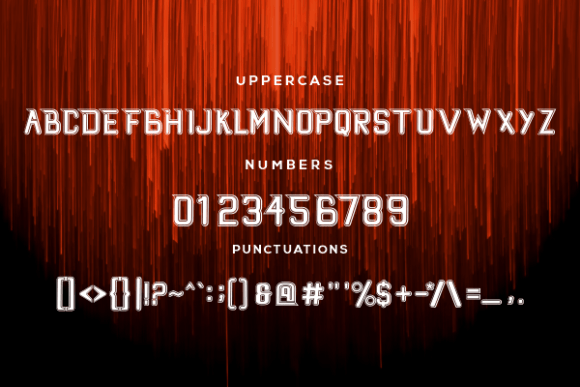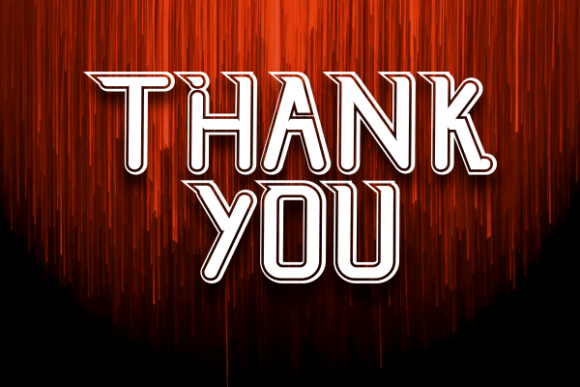
Introduction to Jeqmen Font
Do you ever find yourself scrolling through social media, mesmerized by a stunning visual project that perfectly captures your attention? For many designers, those ‘aha’ moments are what drive our creative process. It’s in those instances that we realize the power of the right design resource can elevate our ideas to new heights.
Enter Jeqmen Font – a modern and cool display font designed to bring your creative projects to life. With its sleek and sophisticated design, this high-quality font is sure to become a favorite among designers. Whether you’re working on a project with a transparent background or need a unique touch to make your design stand out, Jeqmen Font has got you covered.
Key Features of Jeqmen Font
- High-quality design resource suitable for creative projects, offering a unique aesthetic.
- Features a transparent background, making it easy to incorporate into designs with varying backgrounds.
- Designed to be highly legible, even at high resolutions, making it suitable for both print and digital projects.
- Perfect for designers, artists, and creatives looking for a high-quality, free design resource to elevate their projects.
Honest Review: Jeqmen Font
I recently stumbled upon the Jeqmen Font, a free design resource that has piqued my interest. As a designer, I’m always on the lookout for high-quality fonts to elevate my creative projects. Let’s dive into my honest review.
What works well: ✨ The Jeqmen Font has a unique and modern design aesthetic that can add a touch of sophistication to any project. The font is highly customizable and can be easily paired with other design elements to create a cohesive look.
- Transparency: The font offers a transparent background option, which makes it easy to integrate with other design elements.
- Customization: The font is highly customizable, allowing designers to adjust the size, color, and style to suit their needs.
However, there are a few limitations: ⚠️ The Jeqmen Font may not be suitable for all design projects, particularly those requiring a more traditional or classic font style. Additionally, the font may not be compatible with all software or operating systems.
Overall, I’m impressed with the Jeqmen Font. Its unique design and high level of customization make it a valuable resource for designers working on creative projects. With its free download option, it’s definitely worth checking out.
Tips for Getting the Most Out of Jeqmen Font
Use the Jeqmen Font in combination with other design elements to create a visually appealing design. Experiment with different font sizes, colors, and styles to find the perfect look for your creative project.
The Jeqmen Font is suitable for various design projects, including business cards, brochures, posters, and social media graphics. You can also use it for web design, such as creating headings and titles for your website.